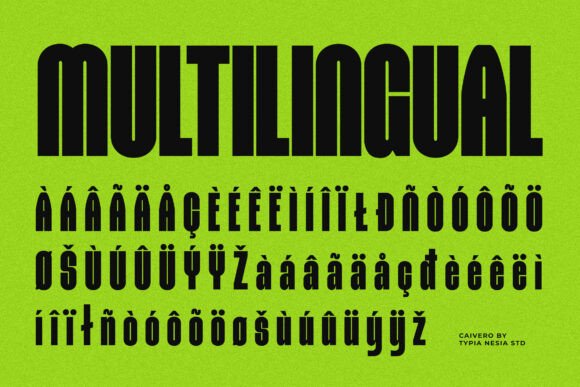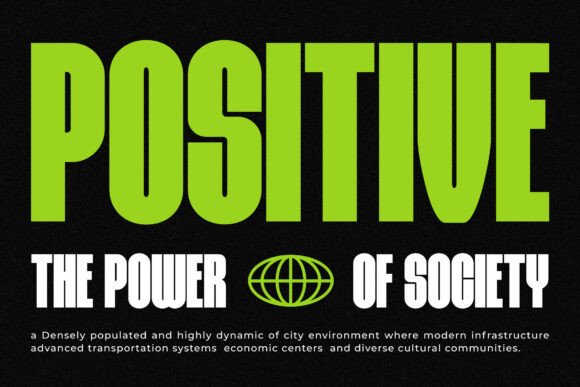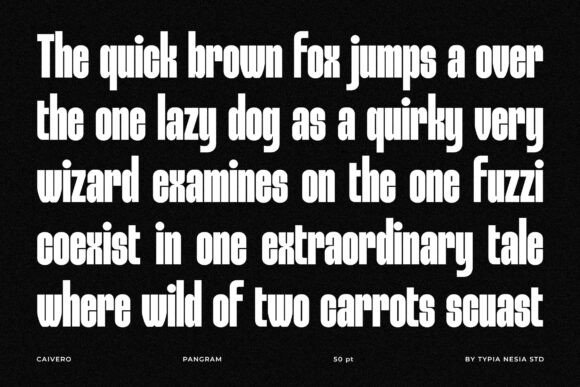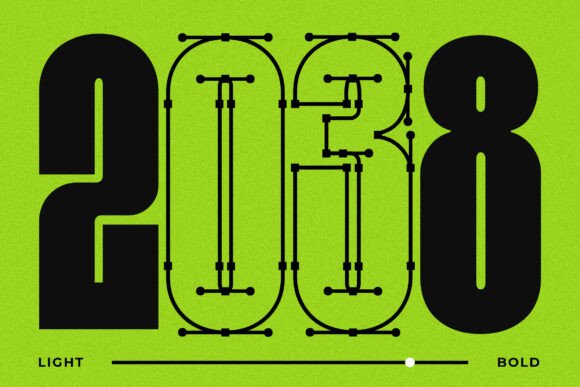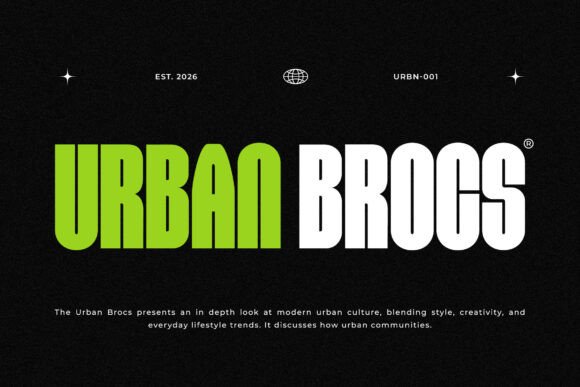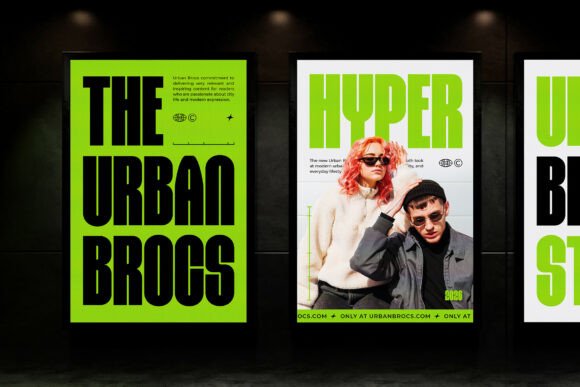
Introducing Caivero Font: The Ultimate Super Condensed Bold Sans Display Font
In the world of typography, a good font can make all the difference in creating a lasting impression. For designers and crafters looking for a powerful and modern display typeface, Caivero Font is an excellent choice. Caivero – Super Condensed Bold Sans Display Font is a bold, super-condensed, tall sans-serif structure font that delivers a clean, urban, and masculine look, perfect for making a strong visual statement.
Key Features of Caivero Font
Caivero Font boasts several key features that make it an ideal choice for designers and crafters. Its sharp proportions and compact letterforms make it perfect for a variety of applications, including:
- Logos and wordmarks
- Logotypes
- Posters and headlines
- Impactful branding
- Sports branding
- Corporate identities
- Advertising visuals
- Modern urban designs
Design and Readability
Caivero Font is designed to maintain excellent readability while maximizing space efficiency. This makes it ideal for both print and digital applications. The font’s bold and super-condensed structure ensures that it commands attention in any layout, making it perfect for designers who want to create a lasting impression.
Benefits of Using Caivero Font
By using Caivero Font, designers and crafters can:
- Create powerful designs with confidence
- Make their typography stand out
- Deliver a clean, urban, and masculine look
- Maximize space efficiency without compromising readability
Why Choose Caivero Font?
Caivero Font is an excellent choice for designers and crafters who want to create a strong visual statement. Its unique features and benefits make it an ideal choice for a variety of applications. By downloading Caivero Font, designers can:
- Elevate their designs with a modern and bold typography
- Save time and effort with a font that is easy to read and understand
- Stay ahead of the competition with a unique and eye-catching font
How to Use Caivero Font
In conclusion, Caivero Font is a powerful and modern display typeface that is perfect for designers and crafters who want to create a strong visual statement. Its bold, super-condensed, tall sans-serif structure delivers a clean, urban, and masculine look that commands attention in any layout. With its excellent readability and space efficiency, Caivero Font is ideal for both print and digital applications. Download Caivero Font now and make your typography stand out.